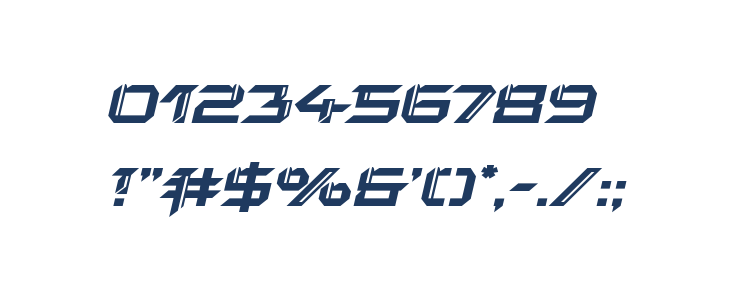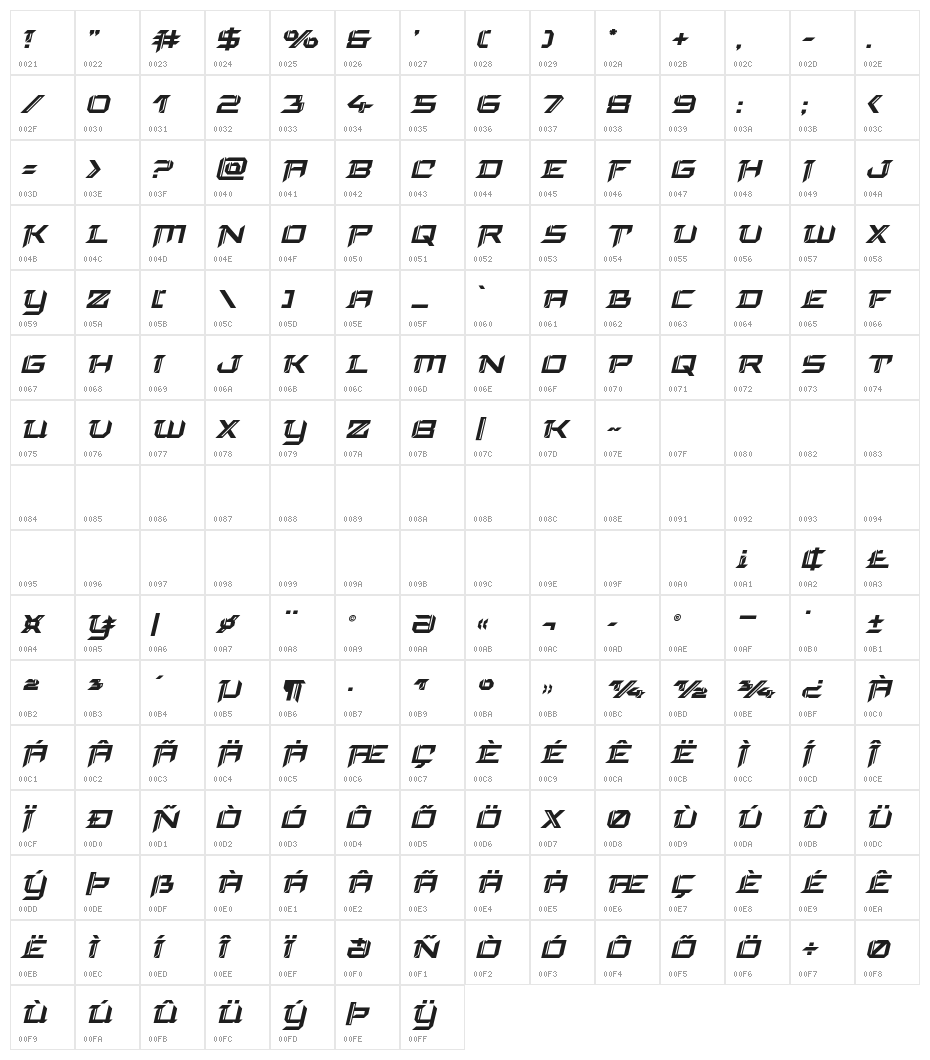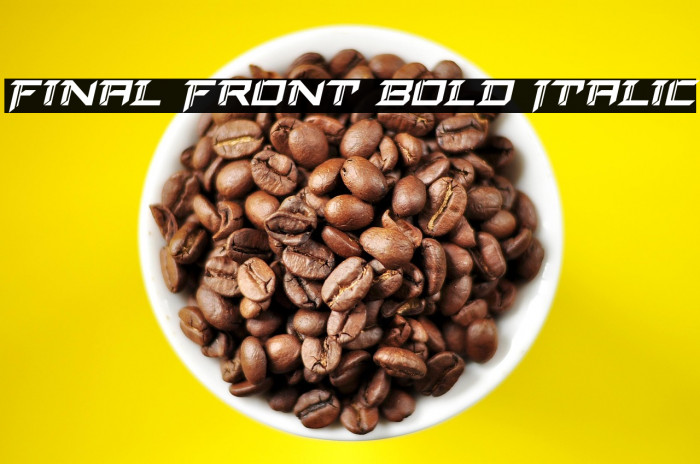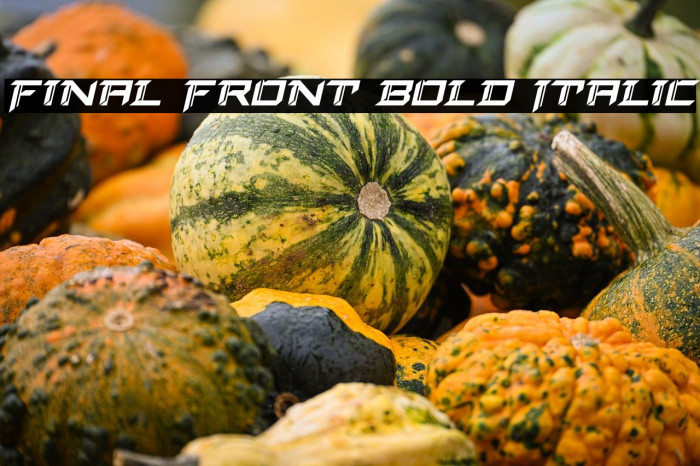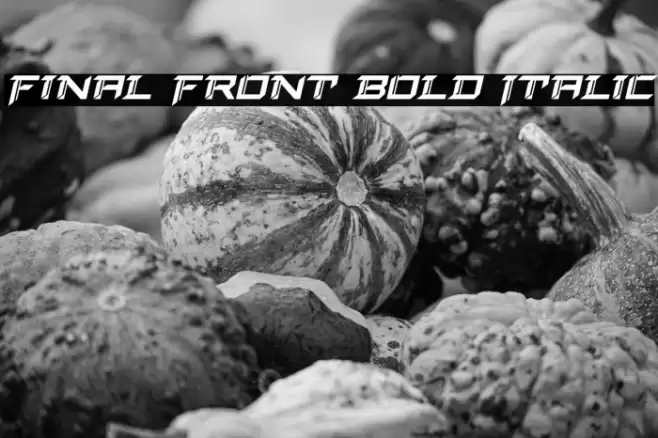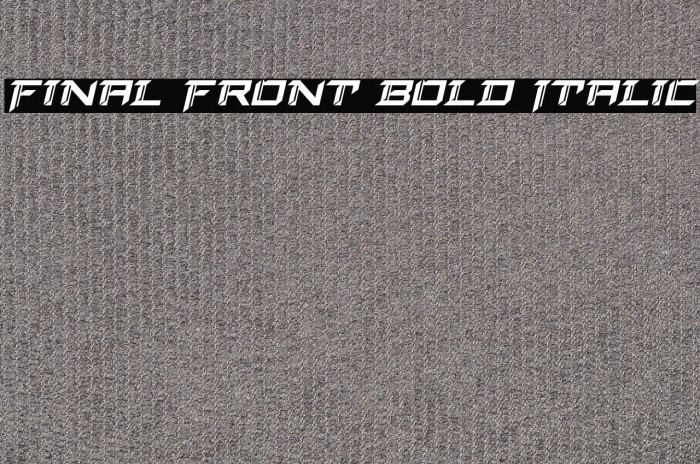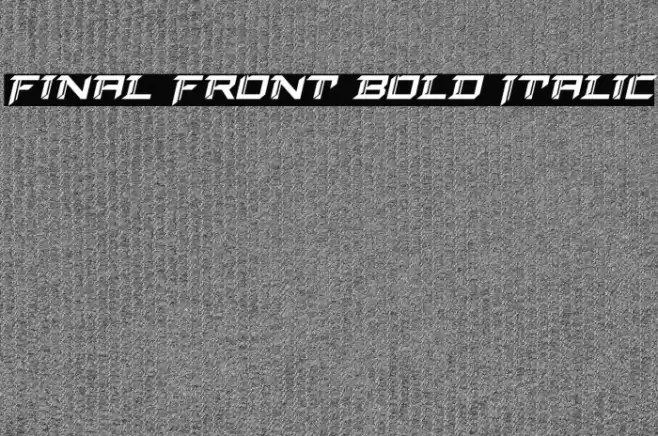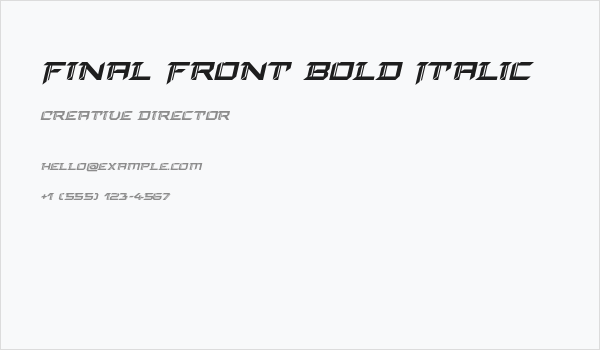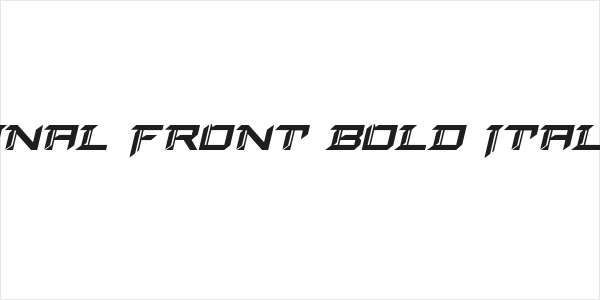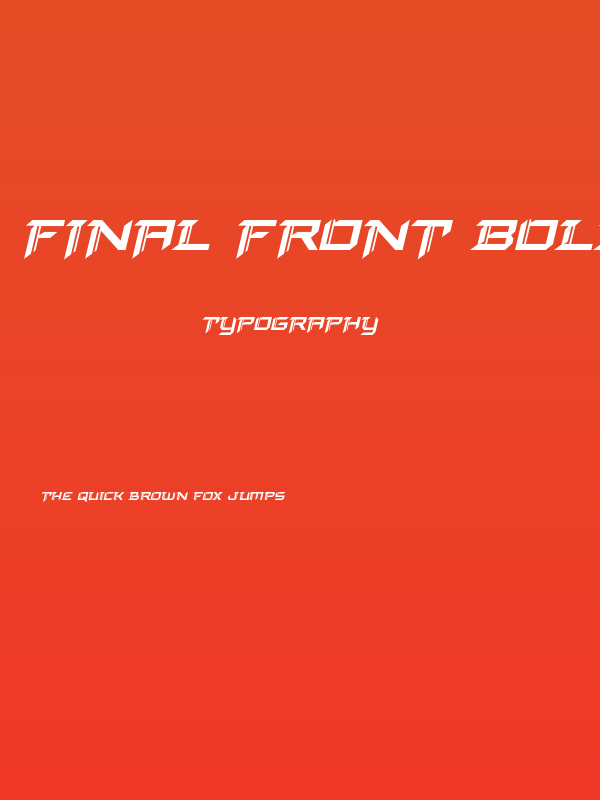
Final Front Bold Italic Font
Final Front Bold Italic Description
This font features a bold and italicized style with a futuristic and dynamic appearance. The characters are sharply angled with a distinct geometric structure, giving them a sense of motion and energy. The uppercase and lowercase letters maintain a consistent design, with strong diagonal lines and pointed edges. Numbers and special characters follow the same aesthetic, ensuring a cohesive look across all glyphs. The font's design is ideal for projects that require a modern and edgy feel, such as technology branding, sports team logos, or video game titles.
| Use Case | Logos, Headlines |
| Proposed Projects | Ideal for technology branding, sports logos, and video game titles. |